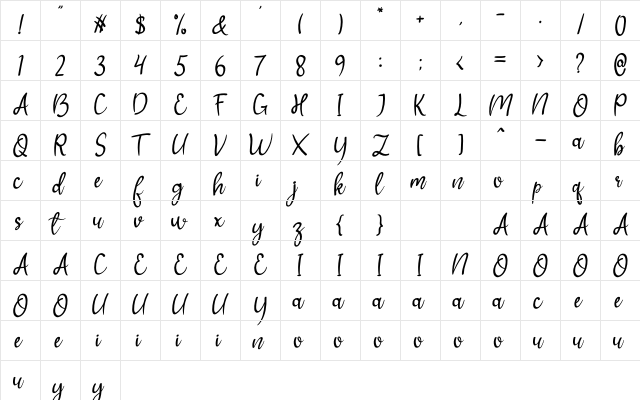
Besbogo Regular
Design Context for Besbogo Typeface
Besbogo is a composed and adaptable typeface that performs quietly and consistently across a wide range of design contexts.